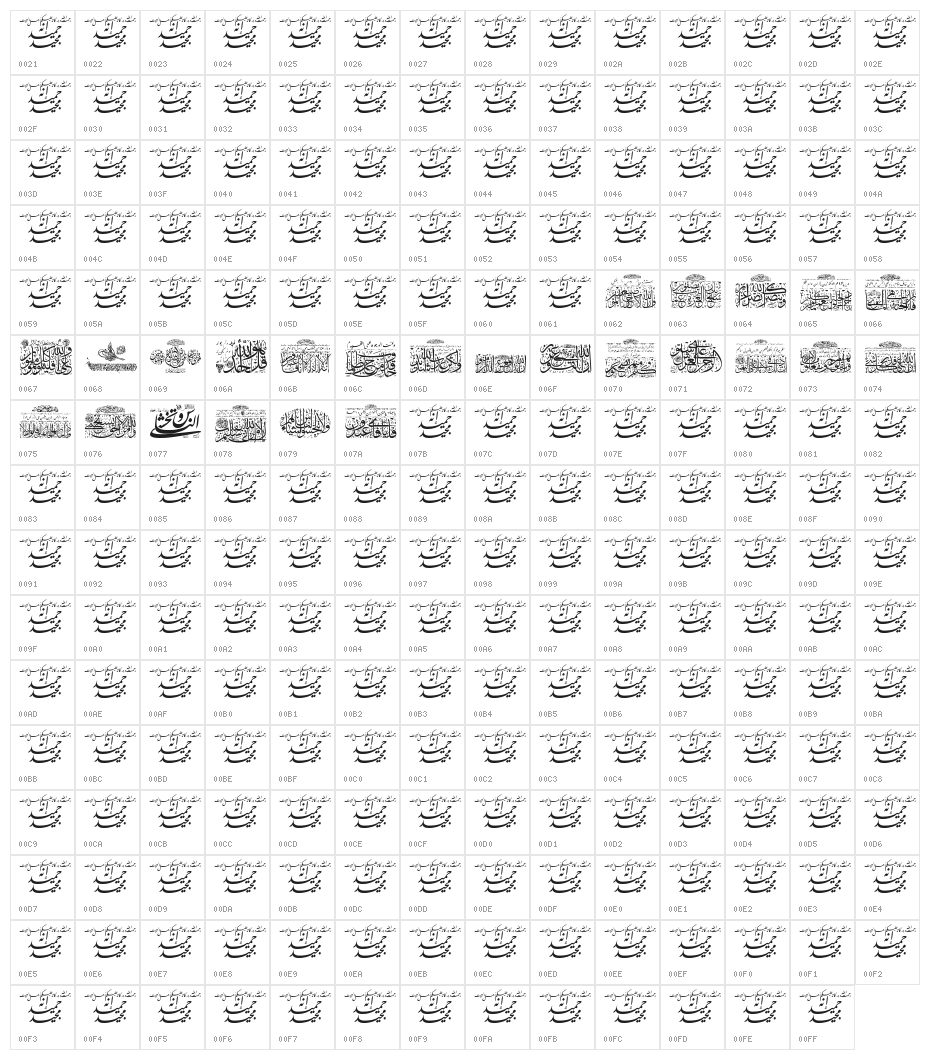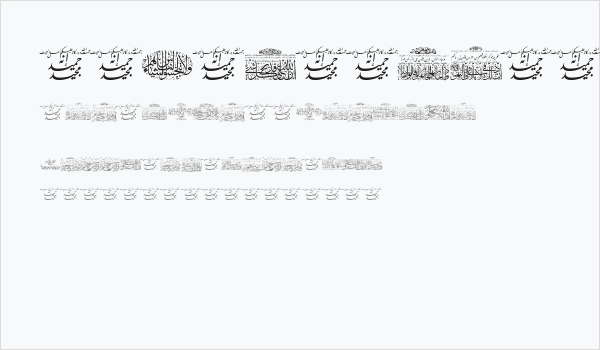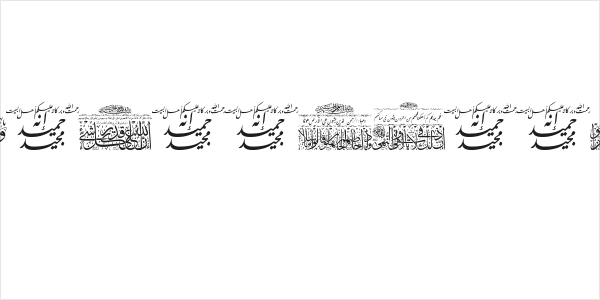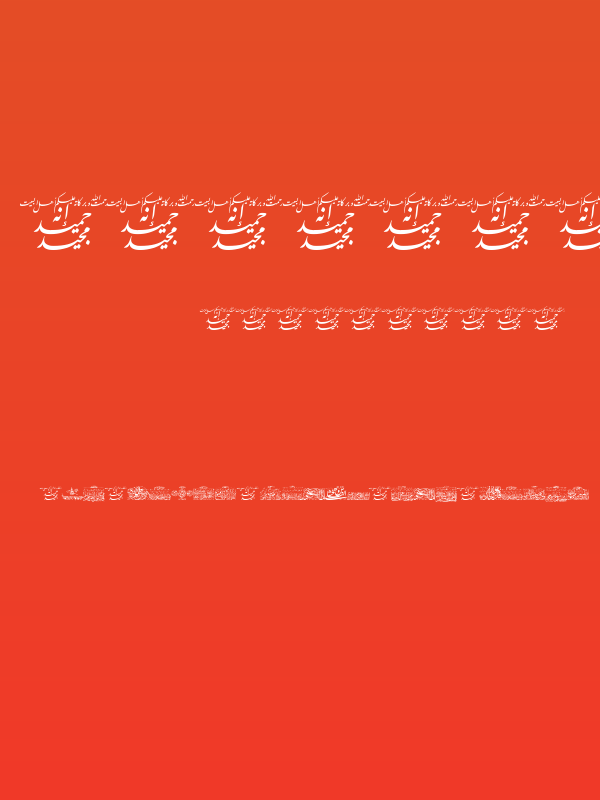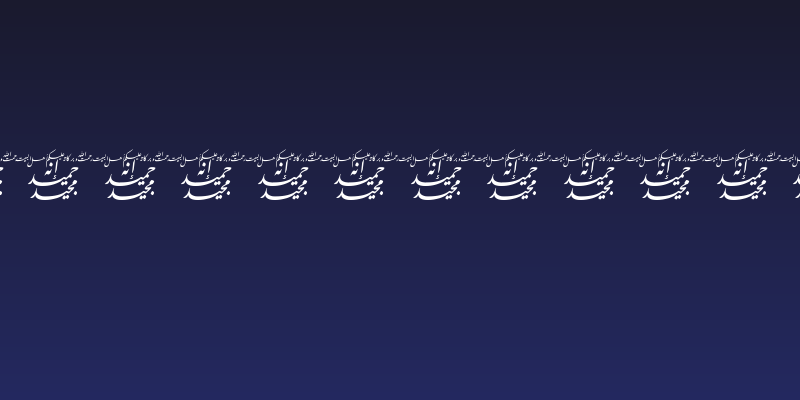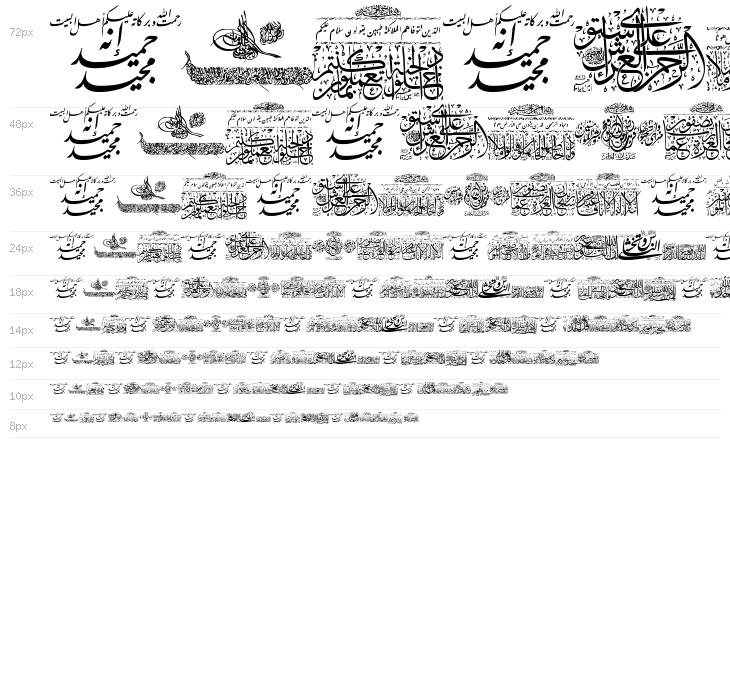
Aayat Quraan 5 Font
Aayat Quraan 5 Description
This script is a beautifully intricate and traditional Arabic calligraphy style, often used in religious texts. It features elegant, flowing lines with a high level of detail and ornamentation. The script is characterized by its graceful curves and the harmonious balance between thick and thin strokes, which create a visually appealing rhythm. The letters are closely connected, enhancing the fluidity and continuity of the text. This style is often used to convey a sense of reverence and spirituality, making it ideal for sacred writings.
| Overall Style | Traditional |
| Use Case | Religious texts, Decorative art |
| Proposed Projects | Ideal for religious texts, decorative art pieces, and cultural projects that require a traditional and spiritual aesthetic. |